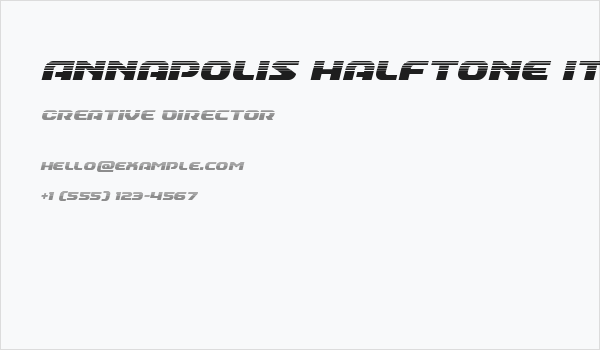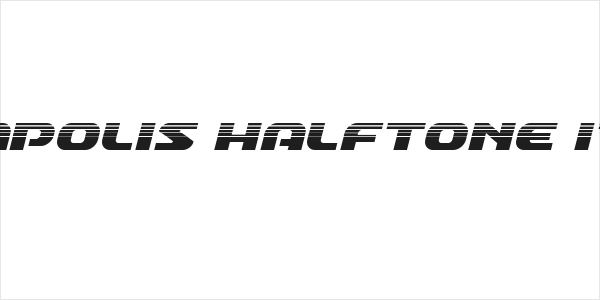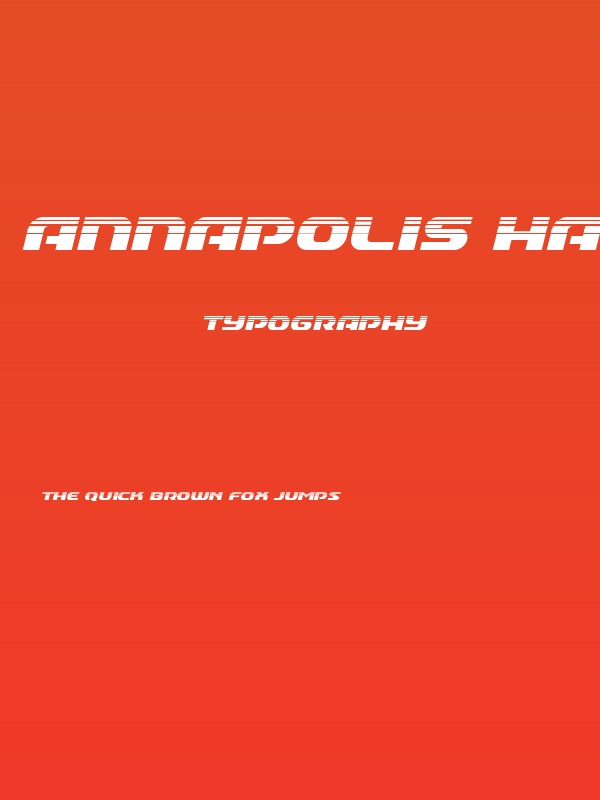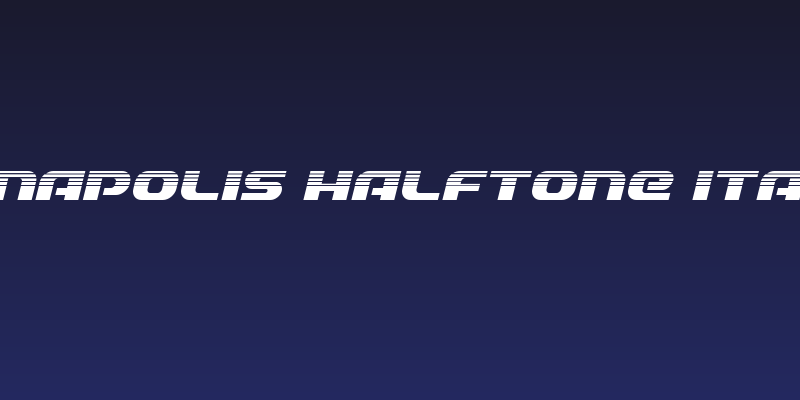
Annapolis Halftone Italic Font
Annapolis Halftone Italic Description
This font features a bold and dynamic design with a halftone effect that gives it a modern and edgy appearance. The characters are italicized, adding a sense of motion and speed. The strokes are thick and consistent, providing a strong visual impact. The halftone pattern within each character creates a unique texture that stands out, making it ideal for attention-grabbing designs. The overall style is futuristic and decorative, suitable for projects that require a bold statement.
| Proposed Projects | Ideal for use in posters, logos, sports branding, and any design that requires a bold, modern aesthetic. |